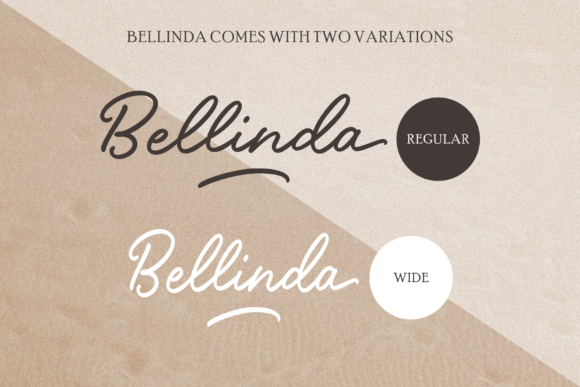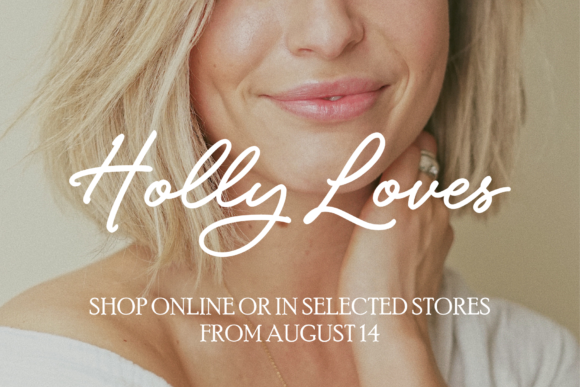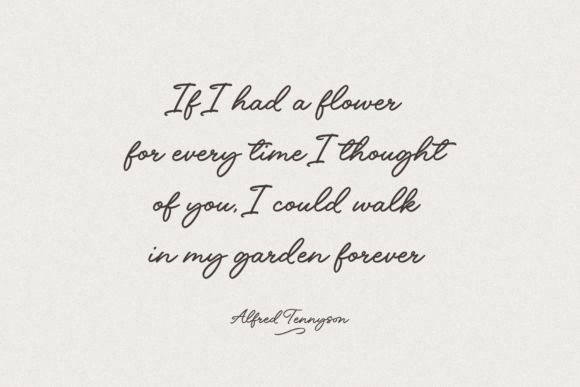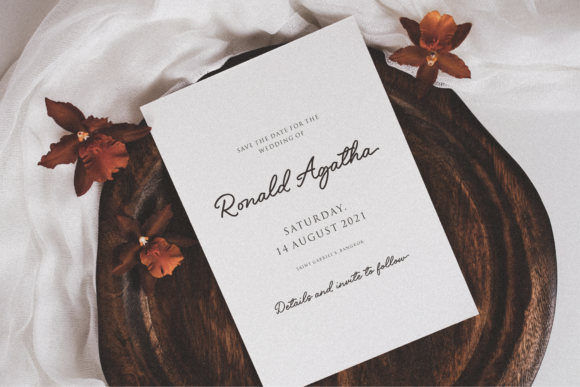
Bellinda – Modern Calligraphy Fonts Font
About Bellinda – Modern Calligraphy Fonts Font
Bellinda is a vintage styled and delicate script font. This font is PUA encoded which means you can access all of the glyphs and swashes with ease!